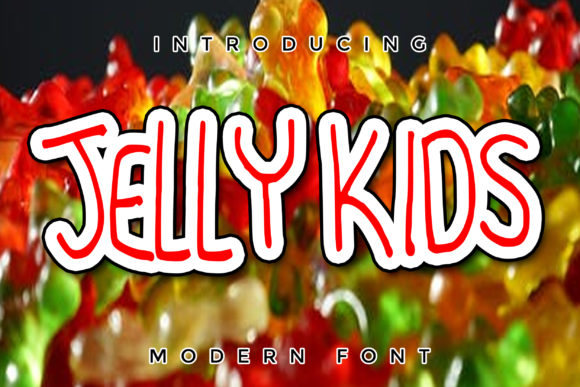
Unleash the magic of Jelly Kids Font, a delightful script font brimming with childlike charm and playfulness. Its whimsical curves and bubbly strokes evoke a sense of youthful innocence, making it the perfect choice for adding a touch of fun and creativity to your projects.
Picture this: a captivating business proposal that comes to life with the vibrant energy of Jelly Kids Font. Its cheerful characters dance across the page, grabbing attention and captivating your audience. Or, envision a school project that bursts with personality, thanks to the playful charm of this font.
Let Jelly Kids Font transport you to a world where imagination knows no bounds. Its whimsical style is perfect for creating eye-catching posters, playful invitations, or cheerful greeting cards. The possibilities are endless!
Embrace the joy and wonder of childhood with Jelly Kids Font. Its magical touch will transform your projects into extraordinary expressions of creativity. Download it today and embark on a journey of endless possibilities!